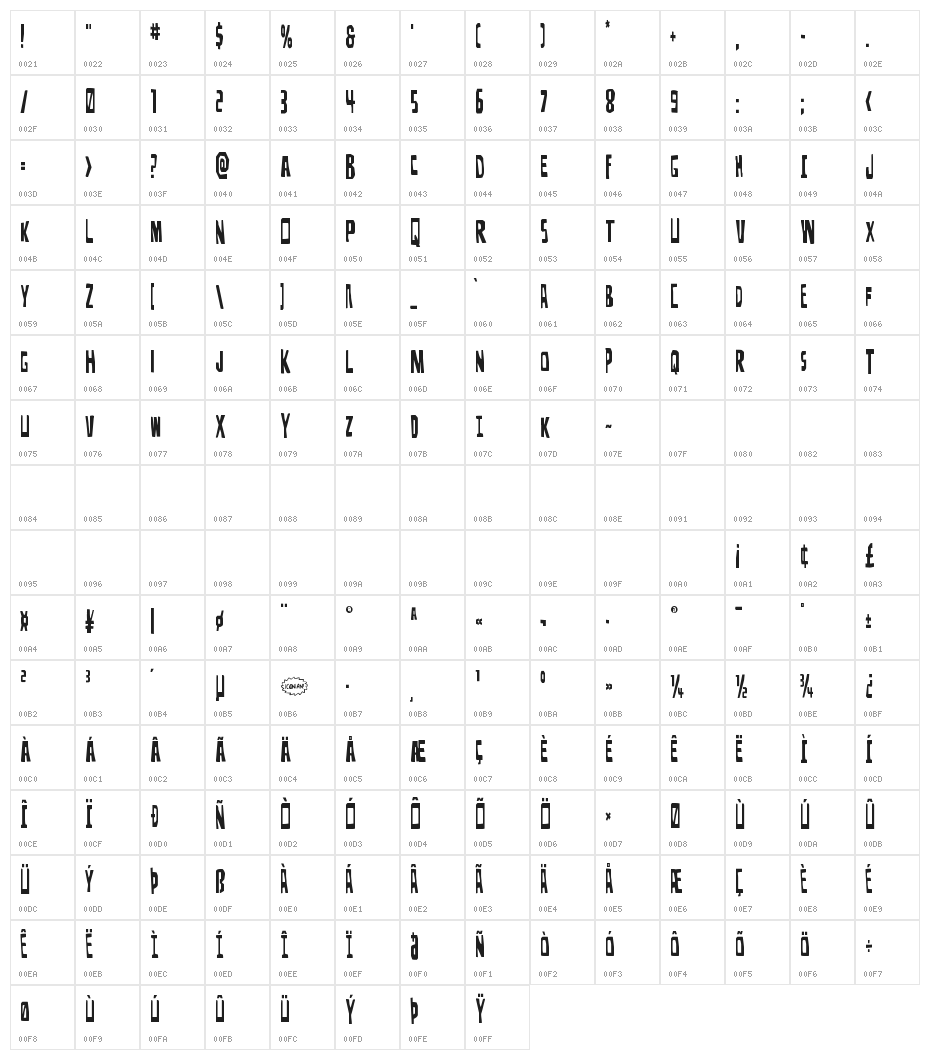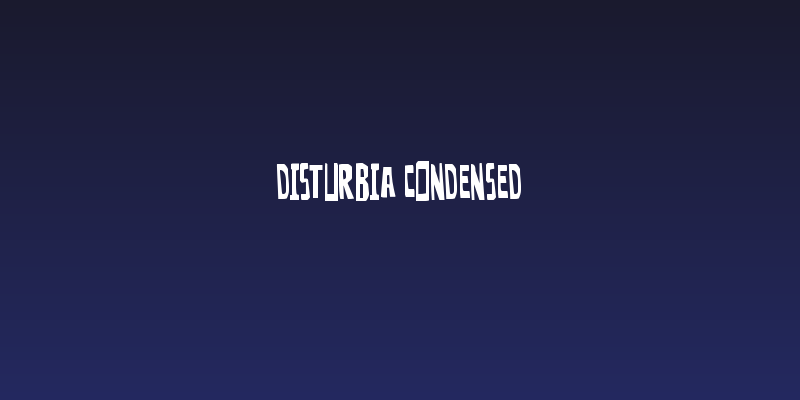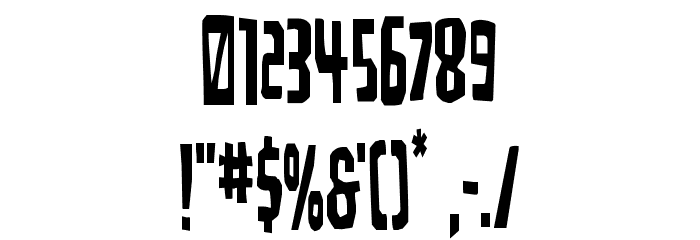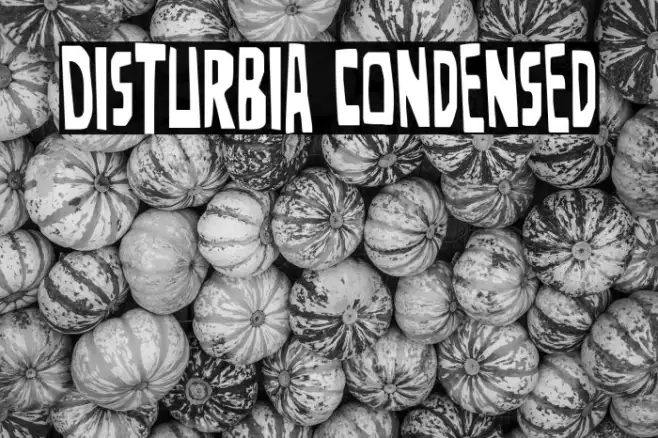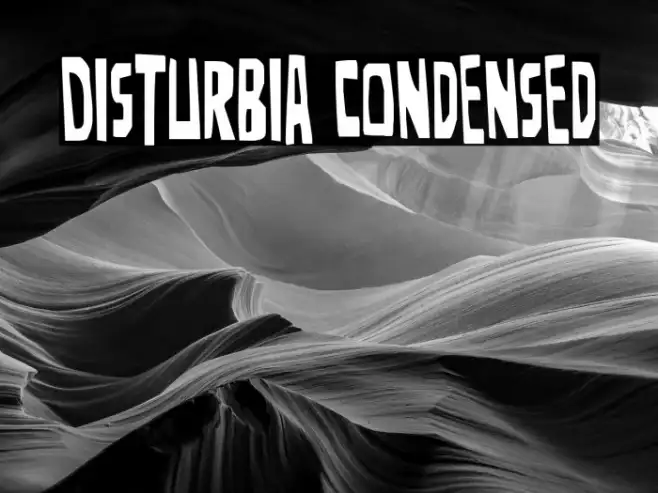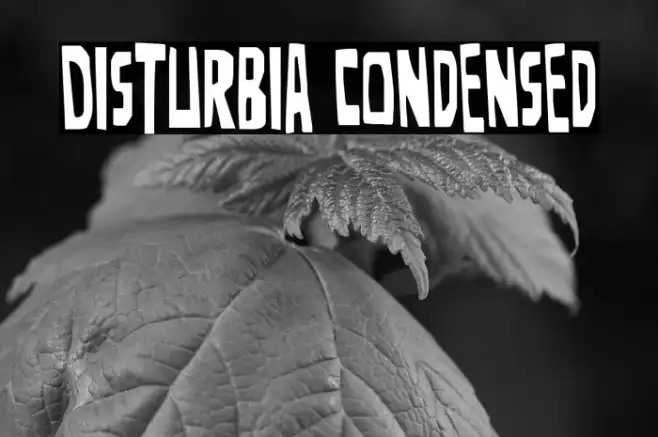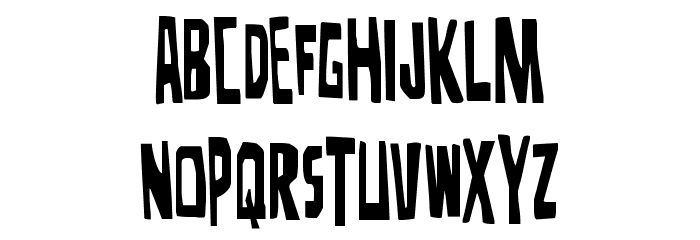
Disturbia Condensed Font
Disturbia Condensed Description
This font features a bold and condensed style with a slightly irregular and playful appearance. The characters are tall and narrow, giving a sense of urgency and energy. The strokes are thick and consistent, creating a strong visual impact. The uppercase and lowercase letters maintain a uniform height, while the numbers and special characters are designed to match the overall aesthetic. The font's unique character shapes add a quirky and dynamic feel, making it suitable for eye-catching designs.
| Proposed Projects | Ideal for posters, headlines, branding, and any design requiring a bold statement. |